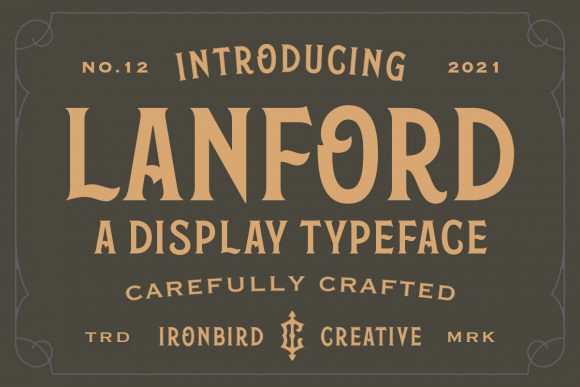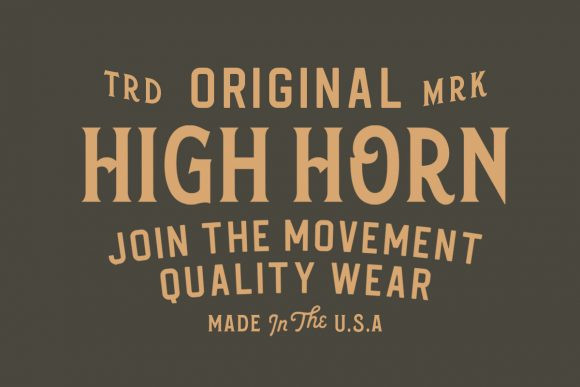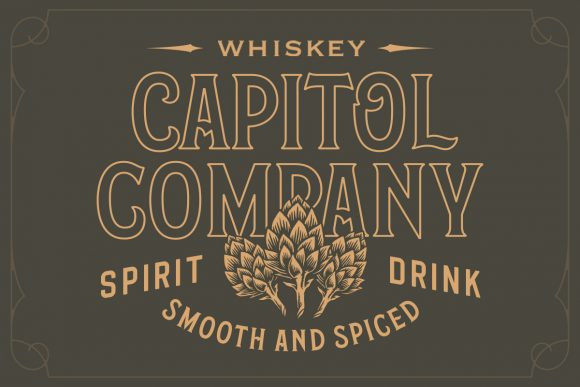
Lanford Font
Lanford is an imposing, vintage styled display font. This font reads as strong, confident, and dynamic and can add tons of nostalgic character to your designs.